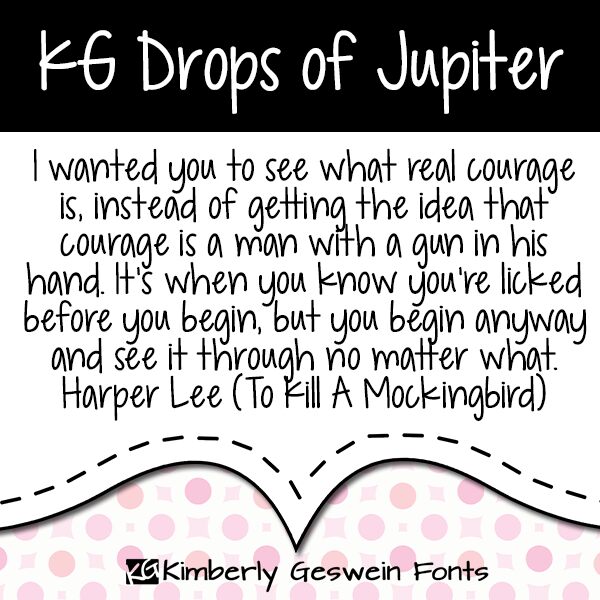
KG Drops of Jupiter by Kimberly Geswein is a free handwritten font with tall, loosely drawn letters and a light monoline look. Rounded ends soften the narrow forms. The uneven heights, open curves, and occasional looping strokes give the alphabet the easy movement of quick marker lettering.
A children's book cover is a particularly good match, since the lanky shapes echo simple character drawings and playful line art. Its informal quality also suits classroom posters, party invitations, and magazine features for young readers, acting much like an illustrated caption.